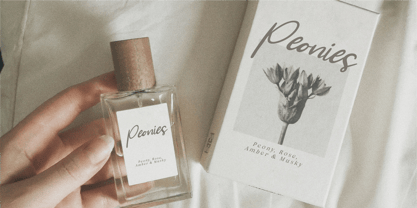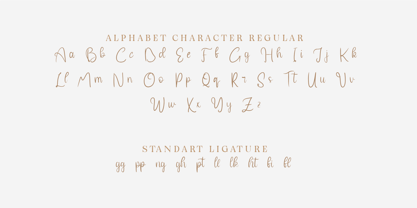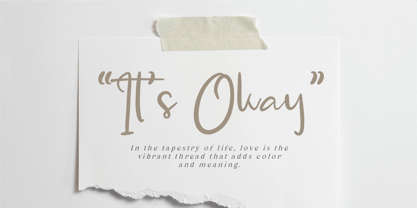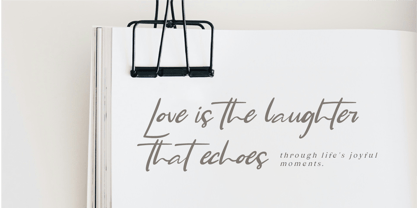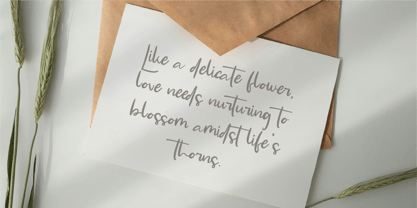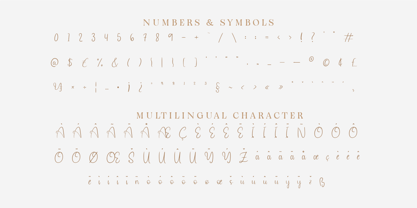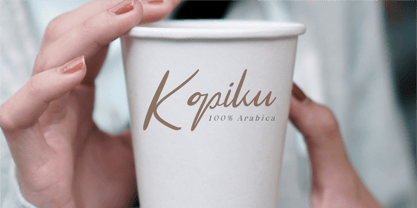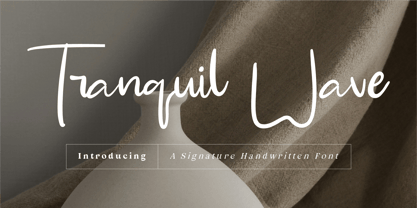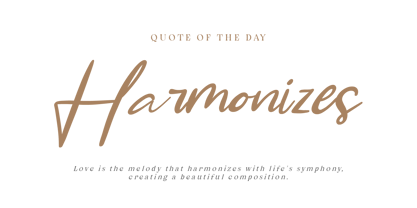
Tranquil Wave – A Serene & Sophisticated Signature Handwritten Font
Experience the beauty of effortless elegance with Tranquil Wave, a signature handwritten font designed to bring a sense of calm, fluidity, and sophistication to your projects. With its delicate yet confident strokes, this typeface captures the art of handcrafted refinement, making it a perfect choice for luxury branding, personal signatures, wedding stationery, and upscale editorial designs.
Inspired by natural flow and modern minimalism, Tranquil Wave delivers a graceful balance between style and readability. The smooth, flowing curves and airy letterforms create an authentic, personal touch, ideal for brands looking to make an impression with understated elegance.
Why Choose Tranquil Wave?
🌊 Effortless Elegance: A signature-style script with a graceful, free-flowing touch.
✒ Perfect for Luxury & Lifestyle Branding: Ideal for high-end fashion, beauty, and editorial projects.
🎀 Refined Yet Relaxed: A unique blend of sophistication and natural movement.
🖋 Authentic Handwritten Feel: Looks as if written with a fine ink pen for added exclusivity.